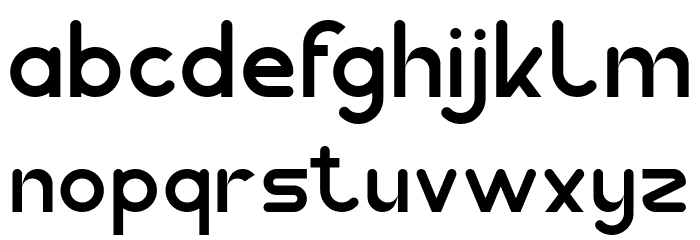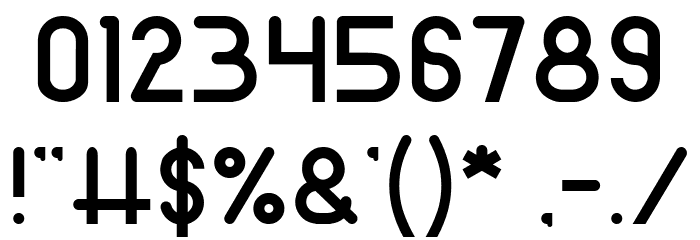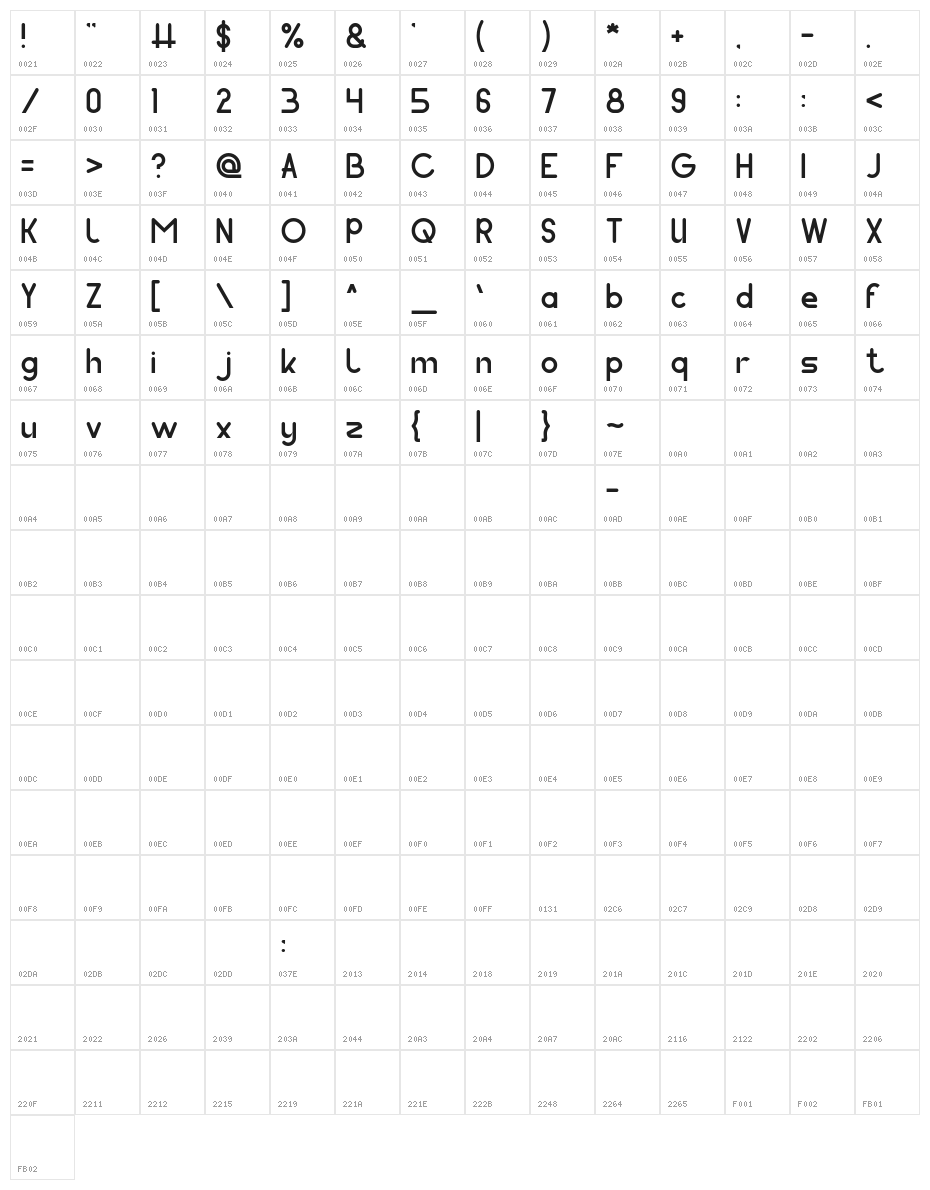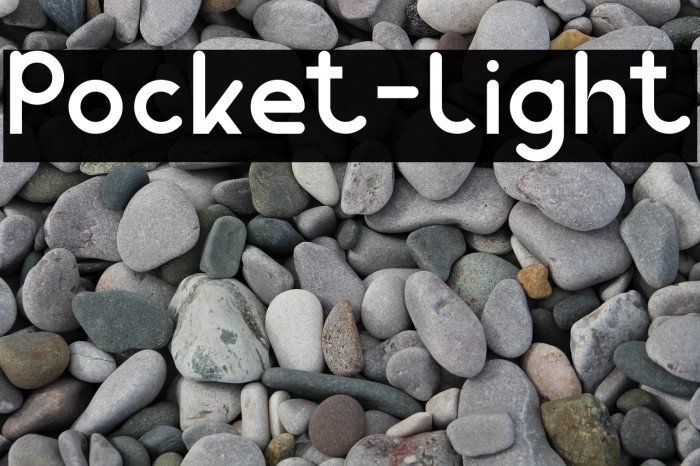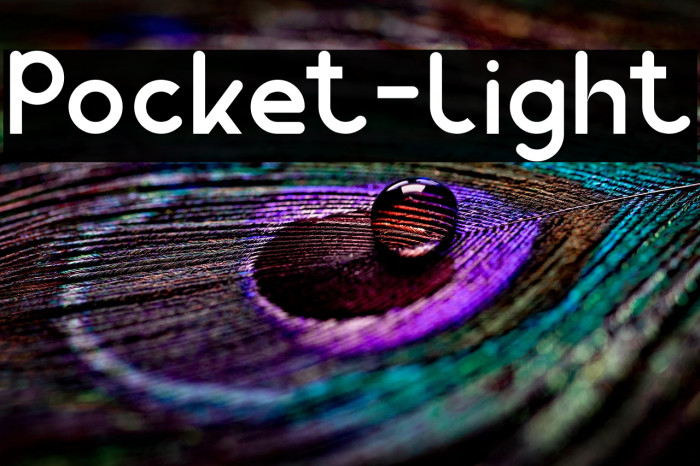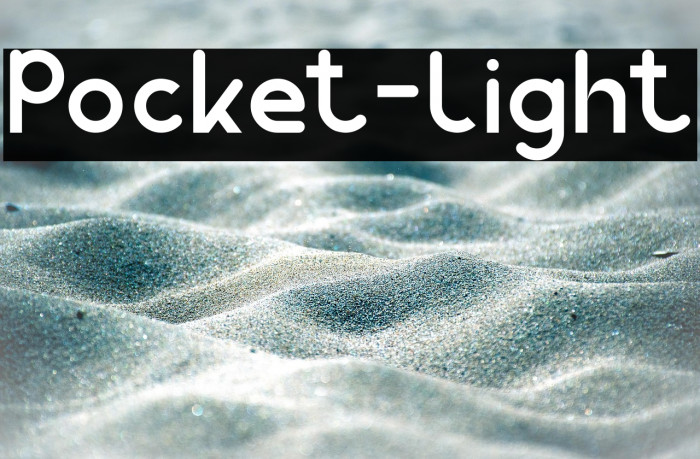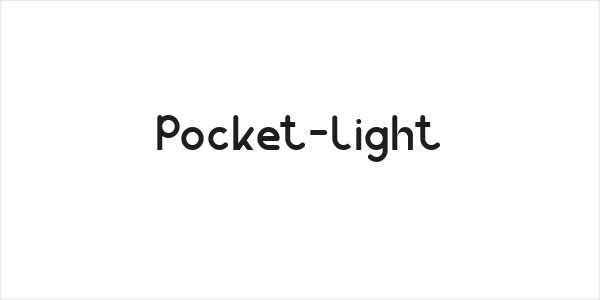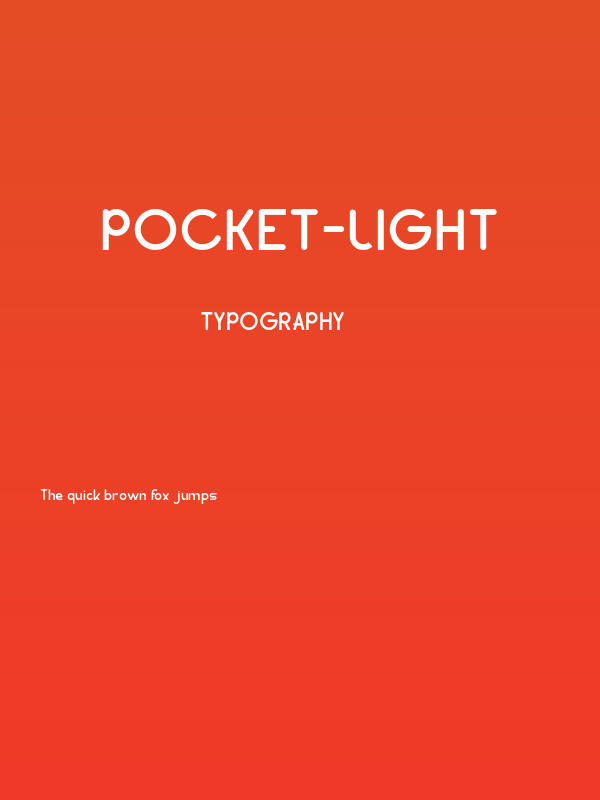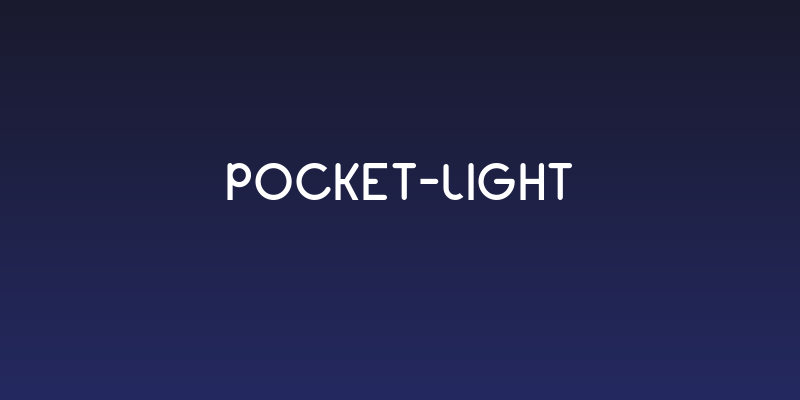
Pocket-Light Font
This font features a clean and modern design with rounded edges and a geometric structure. The characters are evenly spaced, providing a balanced and harmonious appearance. The uppercase letters are bold and assertive, while the lowercase letters maintain a friendly and approachable feel. The numerals are clear and easy to read, making them suitable for various applications. Special characters are designed with the same attention to detail, ensuring consistency throughout the typeface. This font is versatile and can be used in both digital and print media.
A modern, geometric font with rounded edges and balanced spacing.